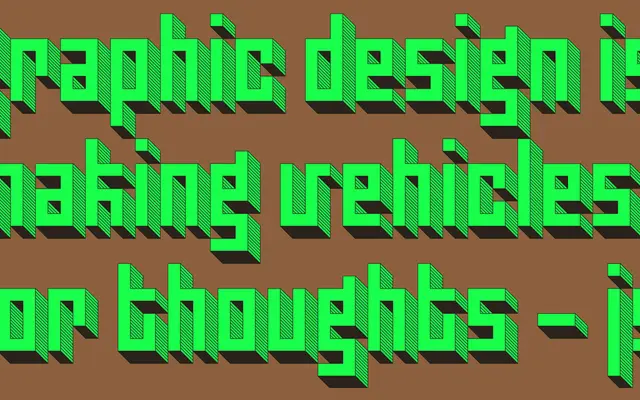
Jurriaan 3D
Bold Monday · Pieter van Rosmalen · 2023
A four-variant layered display face by Pieter van Rosmalen that applies drop shadows, hatching and ribbed shading to compact angular letterforms rooted in Jurriaan Schrofer's 1969 geometry.
Combining Schrofer's 1969 typographic experiments with van Rosmalen's own Capibara, the typeface explores three-dimensional illusion across four styles: Dark fills surrounding space with a severe drop shadow, Ribbed breaks the shade into five lined layers, Shaded mixes hatching with hard shadow for tonal variation, and Fill acts as a base layer for colour combinations with the others. Despite its obvious affinity for poster-scale work, it carries a full OpenType feature set including proper fractions, ordinals, superscripts and inferiors, with wide Latin language coverage.
A strictly angular, geometric display face built around perspective and three-dimensional illusion across four layered style variants; unambiguously a display typeface designed for large-scale applications.